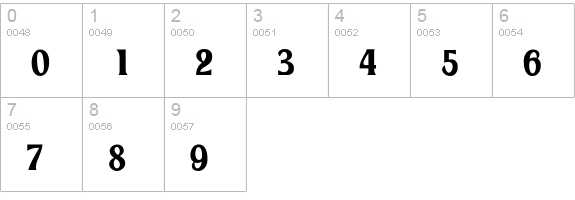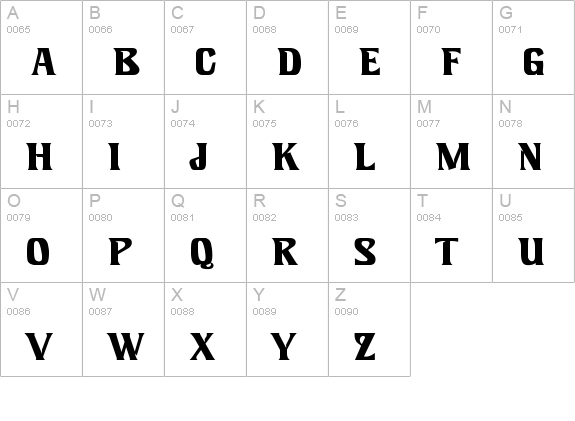
LookingGlassOpti Font Details
LookingGlassOpti is a stunning display font that exudes elegance and sophistication. With its intricate letterforms and stylish design, this font is perfect for adding a touch of class to any project. The sleek lines and sharp angles of LookingGlassOpti make it ideal for creating eye-catching headlines, logos, and branding materials. Whether you're working on a website, poster, or packaging design, this font will elevate your work to the next level. The best part? LookingGlassOpti is available for free download at FontsMarket.com. That's right, you can add this beautiful font to your collection without spending a dime. So why wait? Download LookingGlassOpti today and start creating stunning designs that will leave a lasting impression.